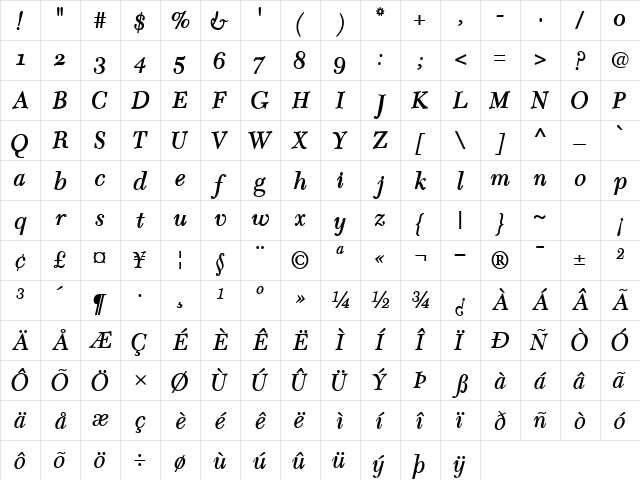
TycoonOSSSK Bold
TycoonOSSSK Family
Complete TycoonOSSSK Bold glyph index. Displaying only characters natively supported by TycoonOSSSK Bold font.
Design Context for TycoonOSSSK
TycoonOSSSK is a composed and adaptable typeface that performs quietly and consistently across a wide range of design contexts. Its bold stroke weight gives it real presence on the page.